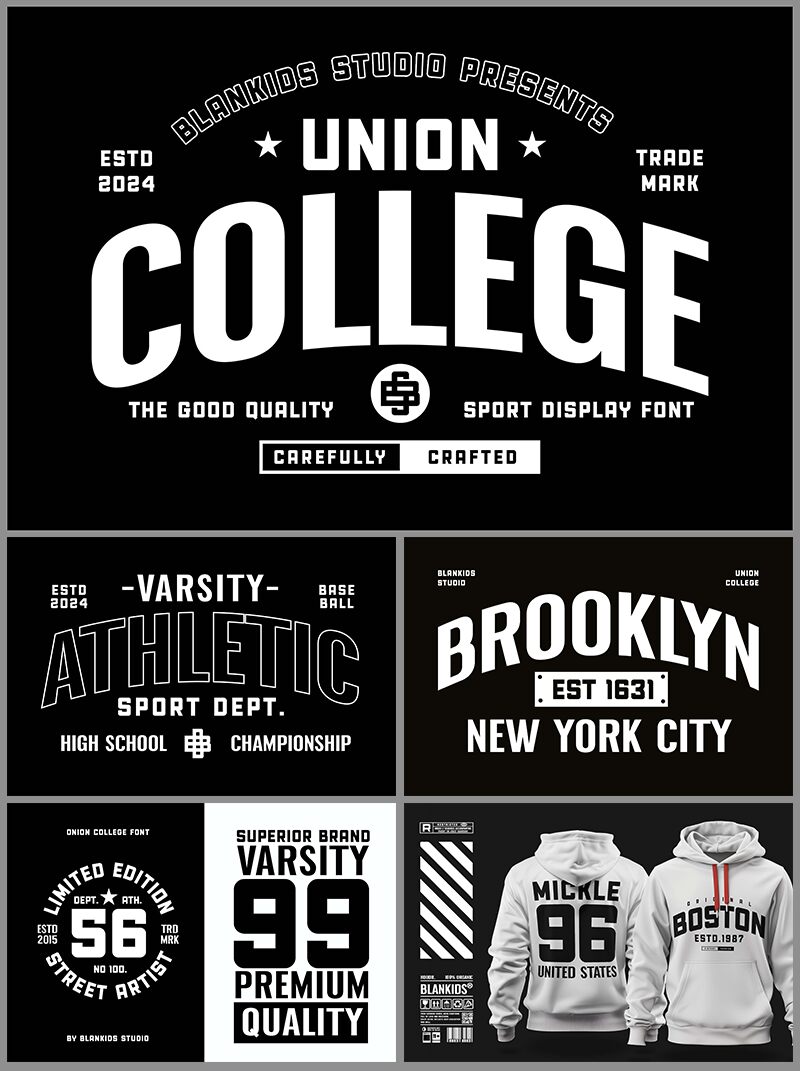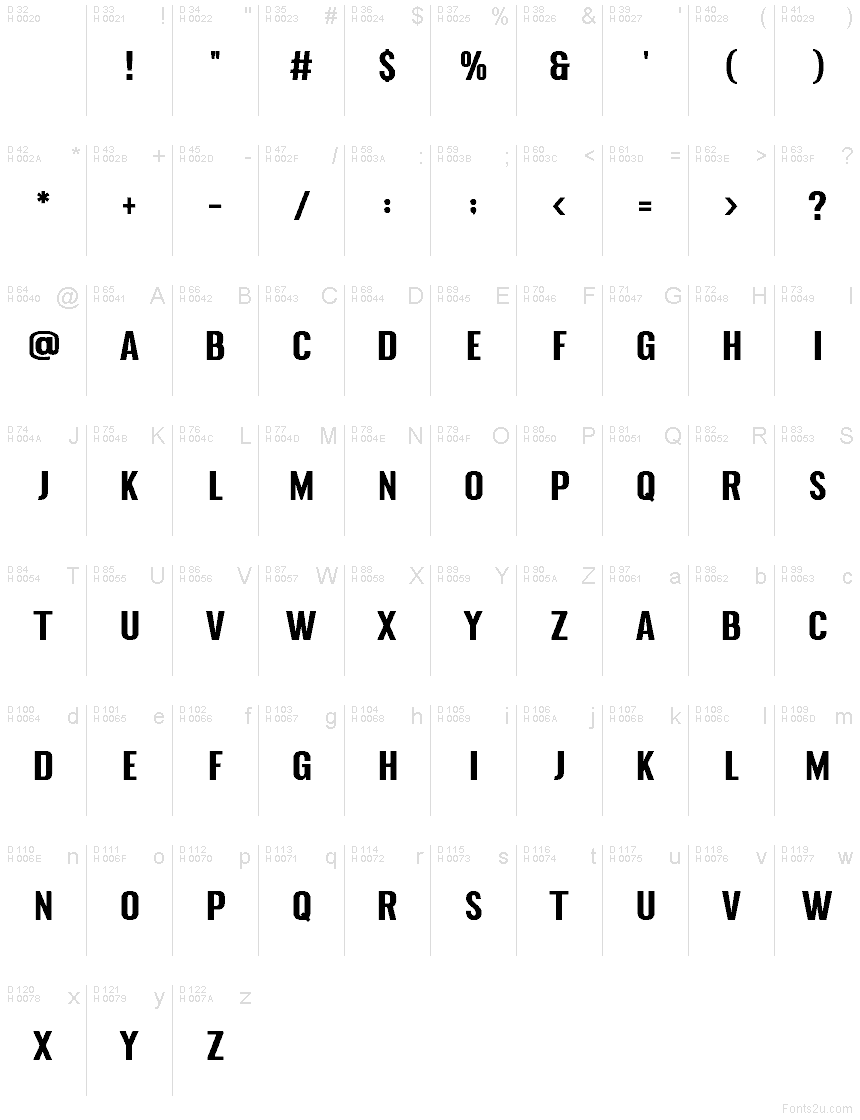
Union College 2 Regular
Union College font by Blankids is a free sans serif typeface that channels classic varsity grit. Tall, condensed letters pack a strong punch, with sturdy verticals and squared curves that read loud and clear from a distance. It feels like bold lettering painted on gym walls—solid, confident, and built to rally a crowd.
Using Union College, headlines snap into place for sports posters, team jerseys, school banners, campus event flyers, signage, and branded apparel. This free font shines when set in all caps with a touch of tracking to let the blocks breathe. Pair it with a simple grotesk or system sans for body copy to keep the message crisp and unified.